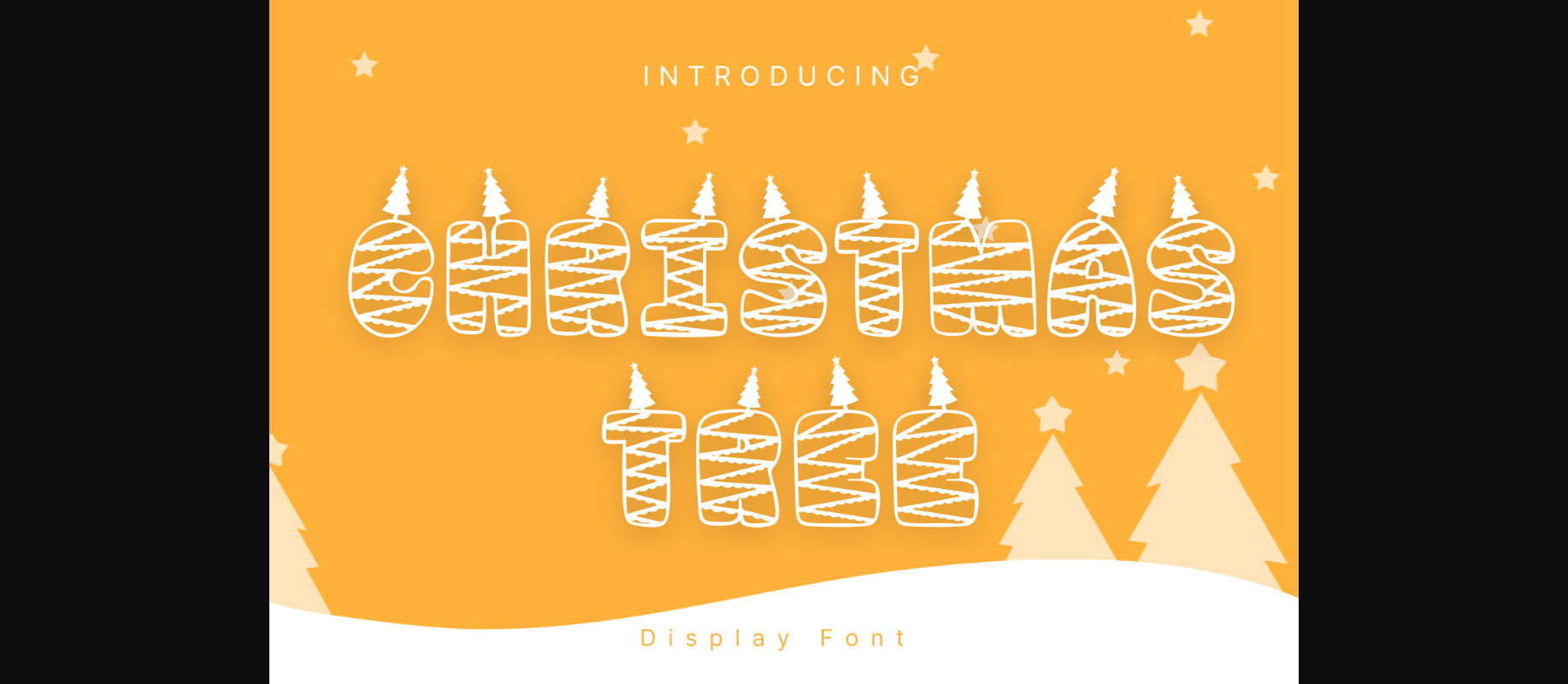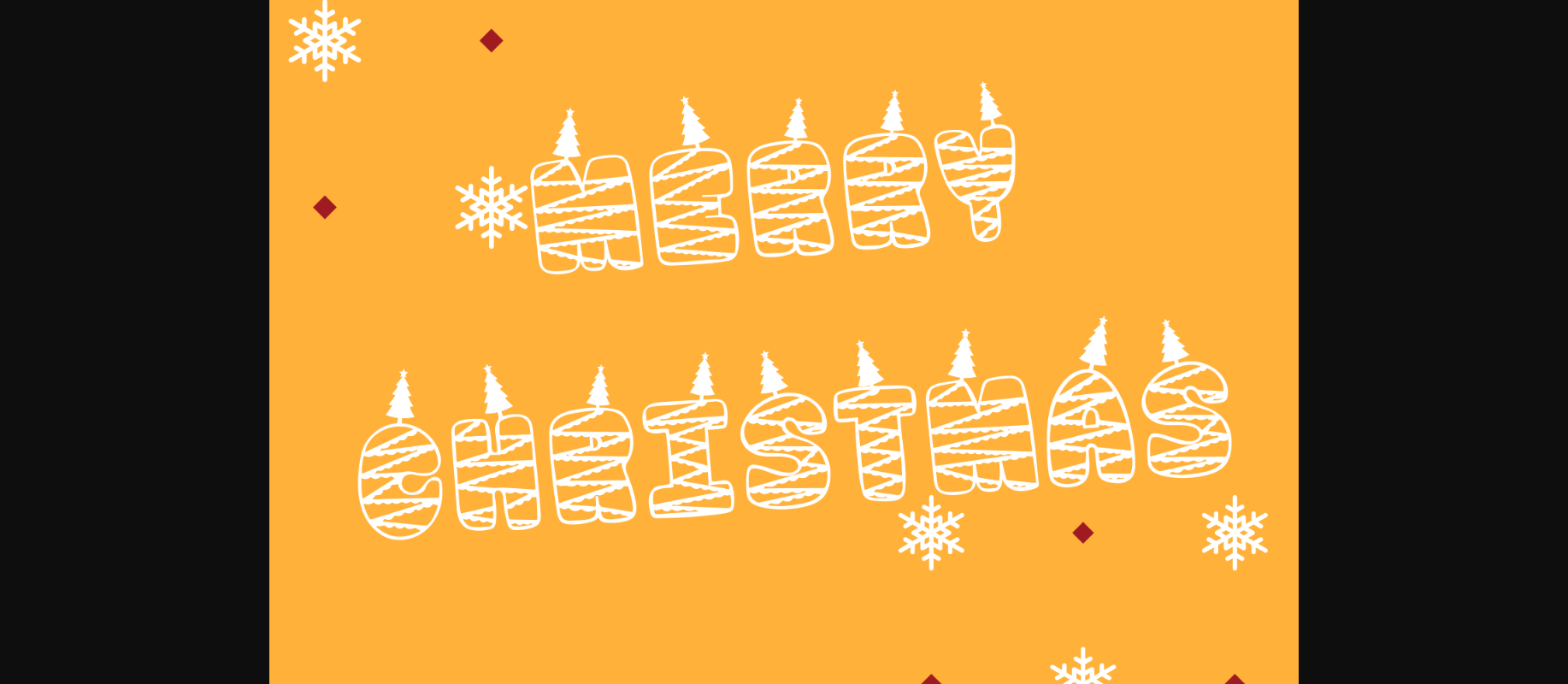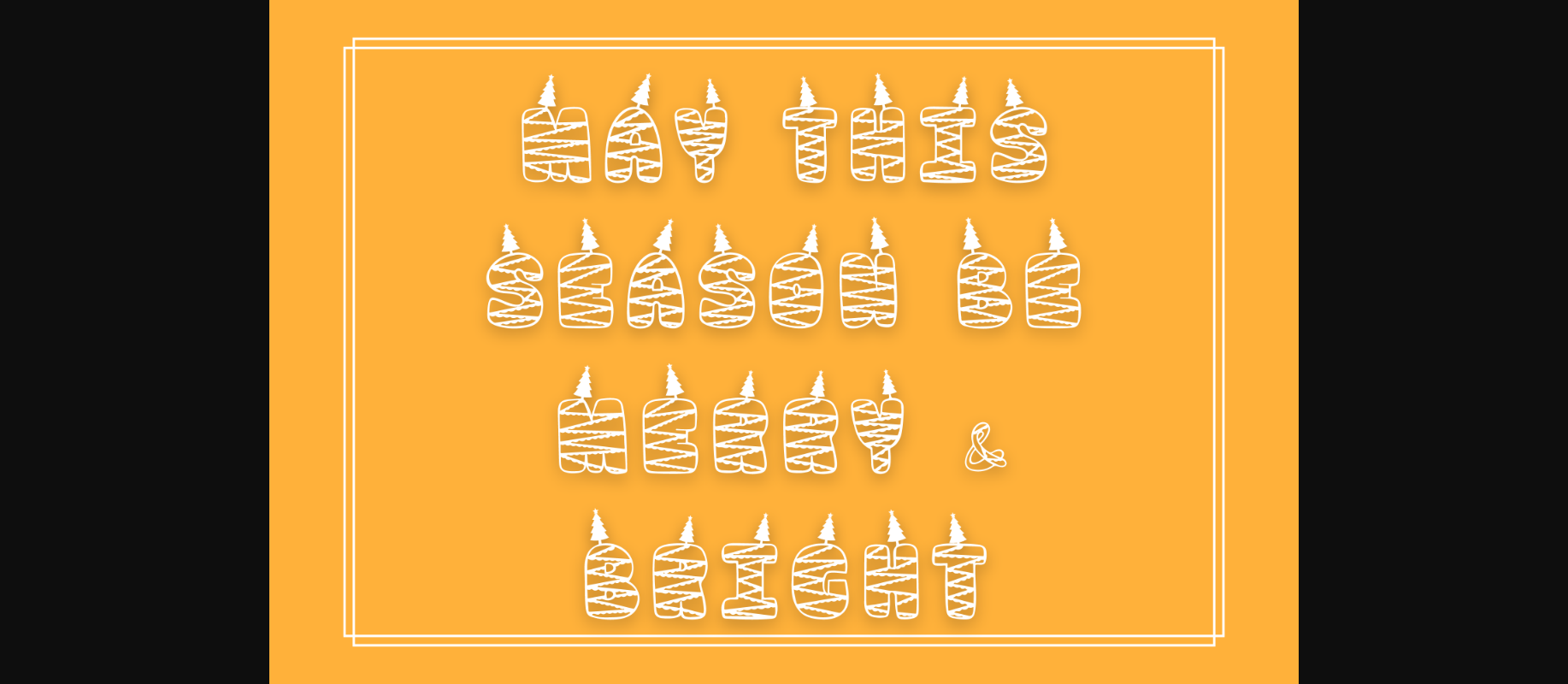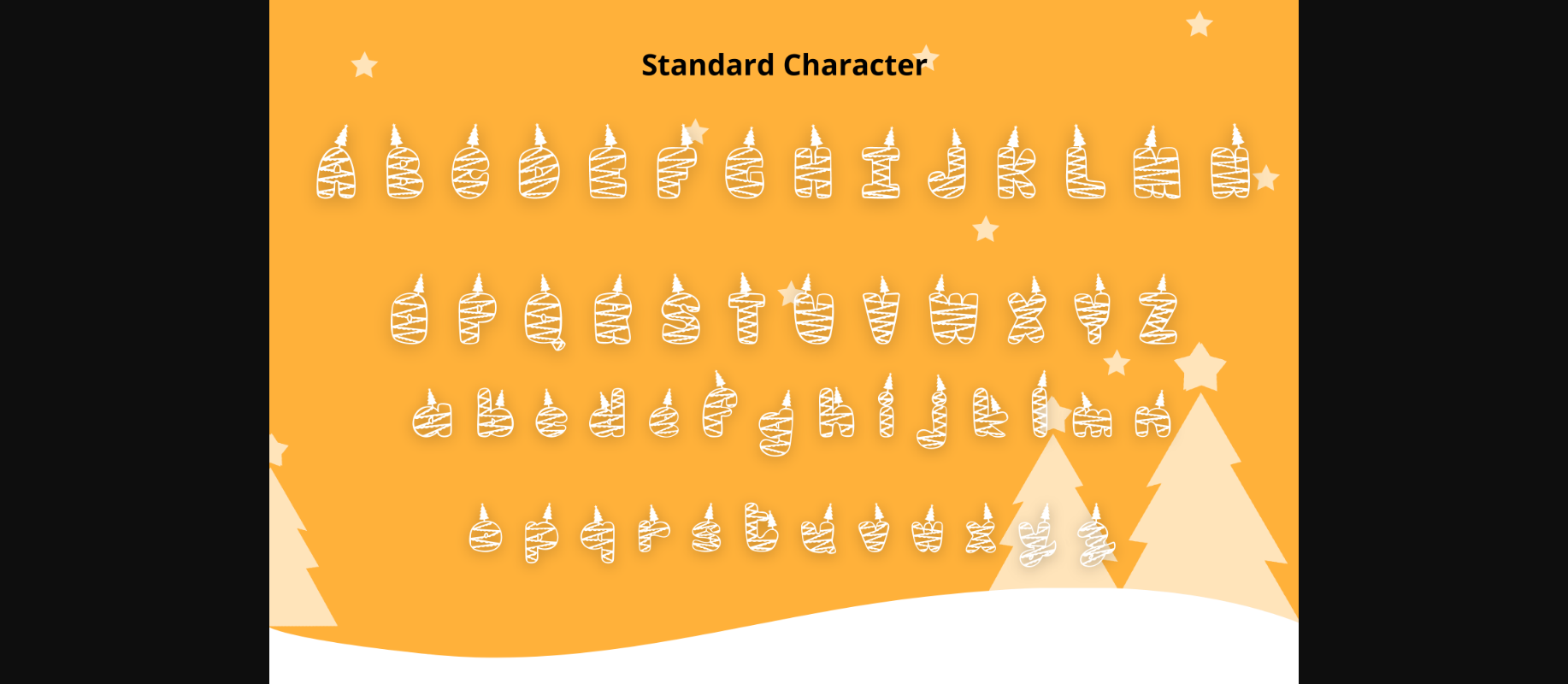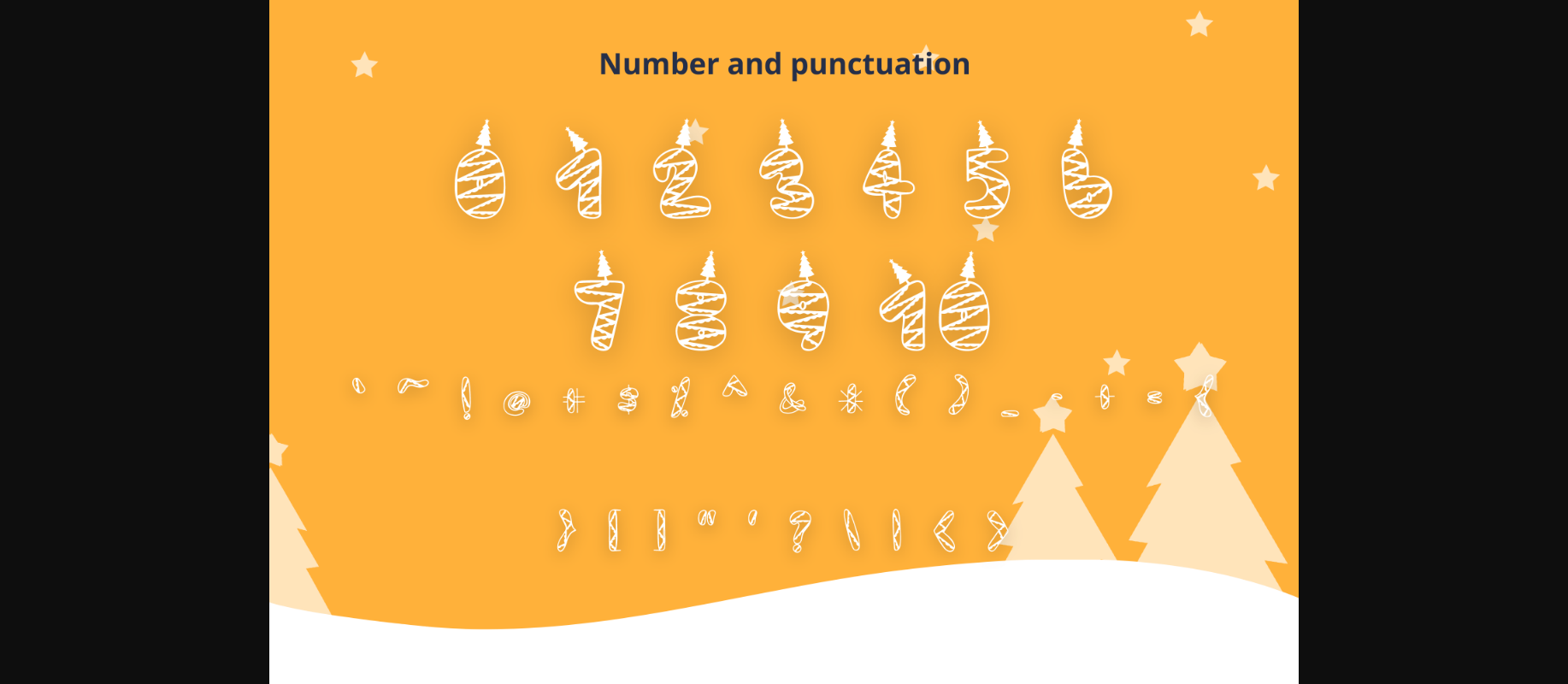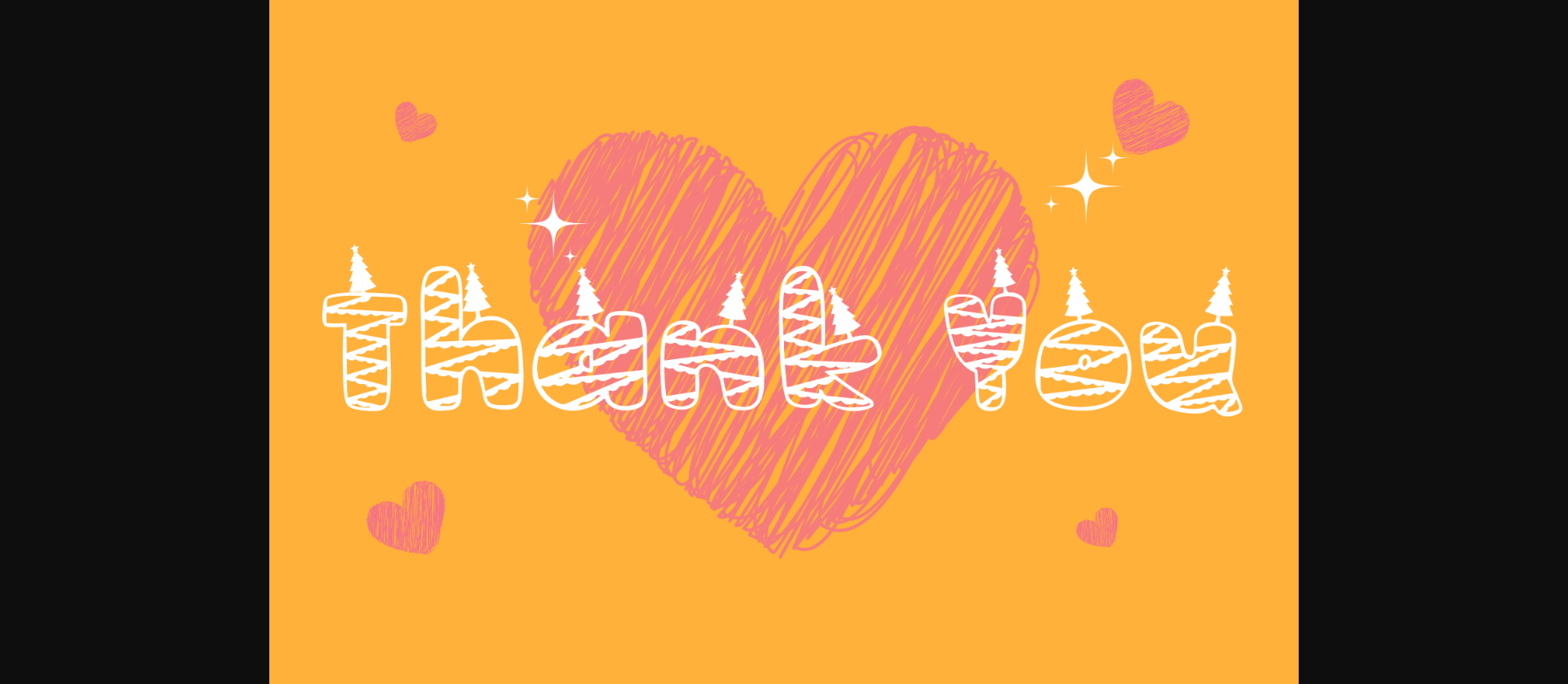
Christmas Tree Font
About Christmas Tree Font
Christmas Tree is a whimsical and festive deocrative font. It can easily be matched to an incredibly large set of projects, so add it to your creative ideas and notice how it makes them stand out!